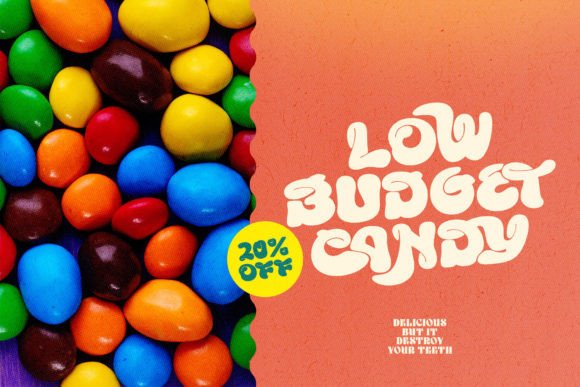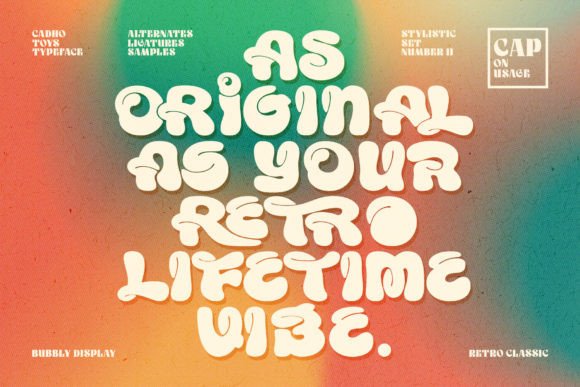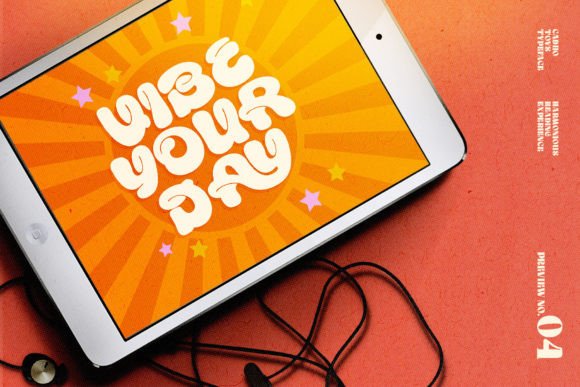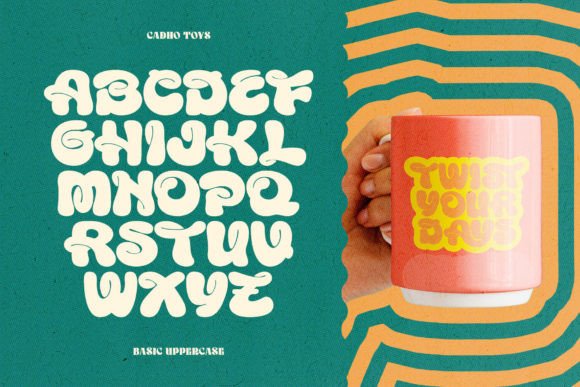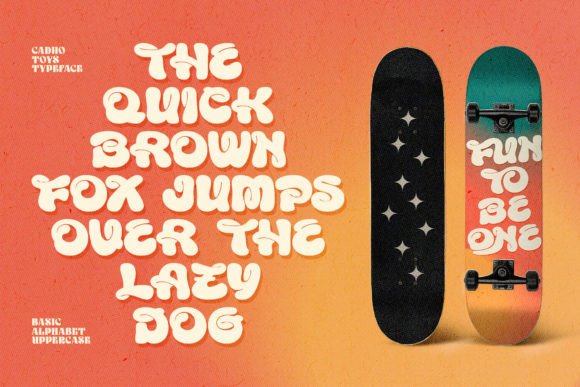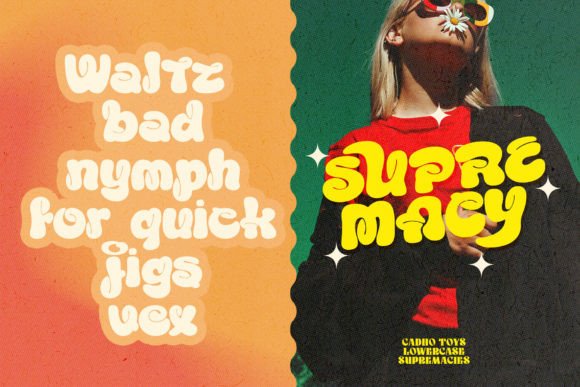
Cadho Toys Font: Adding Whimsy to Your Designs
Remember that moment when you stumbled upon the perfect font that elevated your design from good to great? It’s a feeling that’s hard to describe, but it’s a mix of excitement, relief, and a dash of creative satisfaction. For designers looking to add a playful twist to their projects, we’re excited to introduce the Cadho Toys Font – a delightful bubble display font that’s sure to bring a smile to your face.
Crafted with care, the Cadho Toys Font features a unique alternate ligature style that combines bubbles and letters, creating a fun and engaging visual experience. With its lively appearance, this font is perfect for various design projects, especially those aimed at children, toys, games, or anything that requires a cheerful and vibrant aesthetic. The Cadho Toys Font is a valuable addition to any designer’s toolkit, offering versatility, multilingual support, and a wide range of glyphs to express your creativity without limitations.
Cadho Toys Font Key Features
- Font Family: Cadho Toys is a unique, hand-drawn font designed specifically for toy and children’s product labels.
- Size: The font is designed to be highly scalable, making it suitable for use in a variety of sizes, from small product labels to large signage.
- Resolution: The font is optimized for high-resolution displays and printing, ensuring crisp and clear text at any size.
- Unique Characteristics: Cadho Toys features a playful, whimsical design with rounded edges and a distressed texture, giving it a charming, vintage feel.
- Character Set: The font includes a wide range of characters, including uppercase and lowercase letters, numbers, and punctuation marks.
Cadho Toys Font Review
First off, I was really excited to dive into the Cadho Toys Font. As a designer, I love exploring new fonts that can add a unique touch to my projects. And, in this case, the Cadho Toys Font definitely delivers ✨. The playful, whimsical feel of the font is perfect for children’s book illustrations, toy packaging, or any project that needs a fun, youthful vibe. The font is also highly customizable, with a range of weights and styles to choose from, making it easy to tailor the look to your specific needs.
One thing that really stood out to me was the wide range of characters available, including a variety of emojis and special characters. This makes it a great choice for anyone who needs to include a lot of visual elements in their design. Additionally, the font is highly legible, even at small sizes, which is essential for any font.
- Playful, whimsical feel ✨
- Wide range of characters, including emojis and special characters
- Highly legible, even at small sizes
- May be too playful for more formal or professional designs ⚠️
- Can be difficult to read in certain font sizes or styles
Overall, I’m really impressed with the Cadho Toys Font. While it may not be the best choice for every project, it’s definitely a great option for anyone looking to add a fun, youthful touch to their design. With a little practice and experimentation, I’m confident that you’ll be able to get the most out of this versatile font.
Tips for Getting the Most Out of Cadho Toys Font
Use Cadho Toys Font to create playful and eye-catching designs, especially for children’s products or educational materials. Experiment with different font sizes and colors to create visual interest.
Cadho Toys Font is ideal for:
- Children’s product packaging
- Education materials (e.g., textbooks, worksheets)
- Playful marketing materials (e.g., posters, flyers)